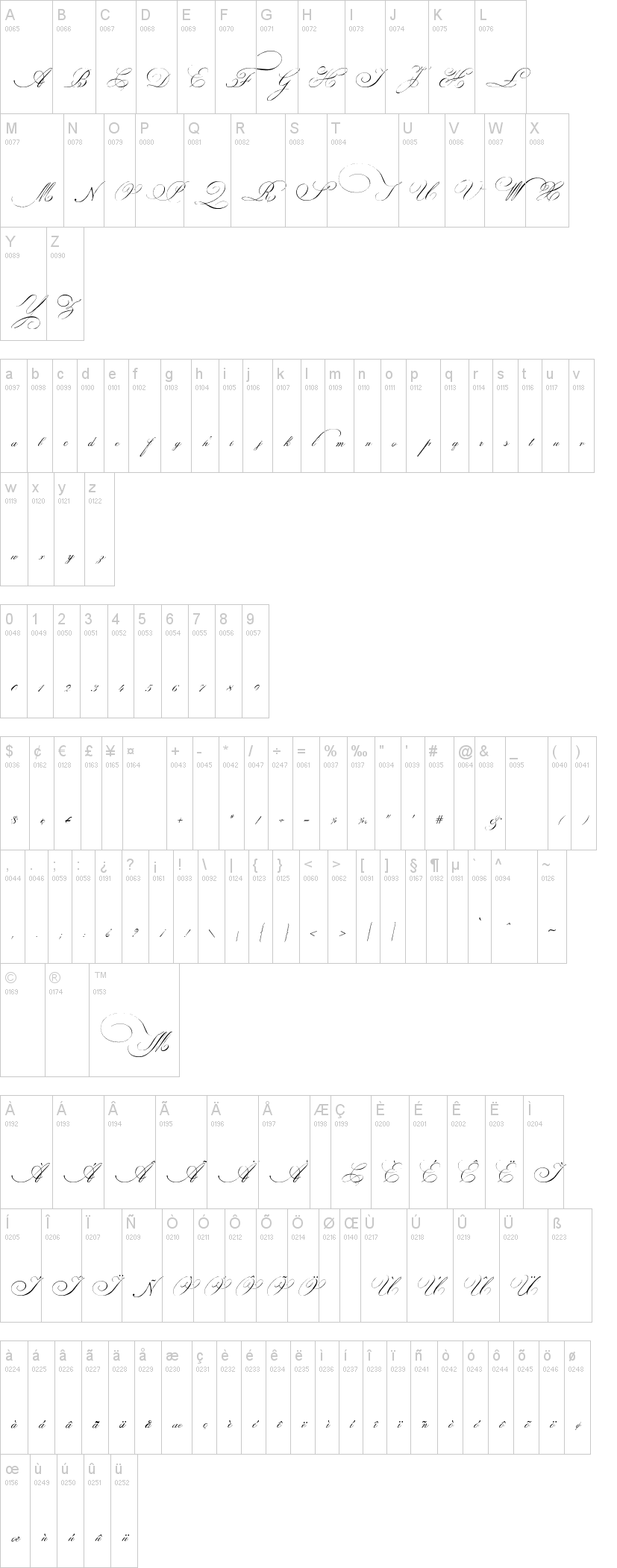
Indenture English Penman Demo
ABOUT THE FONT
Indenture English Penman is based on research into original English and American indenture contracts from the eighteenth and nineteenth centuries, mostly with roundhand scripts, paragraph versals in Old English script and many, many
flourishes. The complete font has over 800 gliphs and a little of everything, with hundreds of glyphs: dozens of versals to each alphabet letter, some versals in Old English style, plus flourishes to use at beginnings of paragraphs or
chapters, and many additional flourishes to create perfect ancient documents. To better use the resources of this font we suggest using the Glyphs resource in Illustrator and other software.